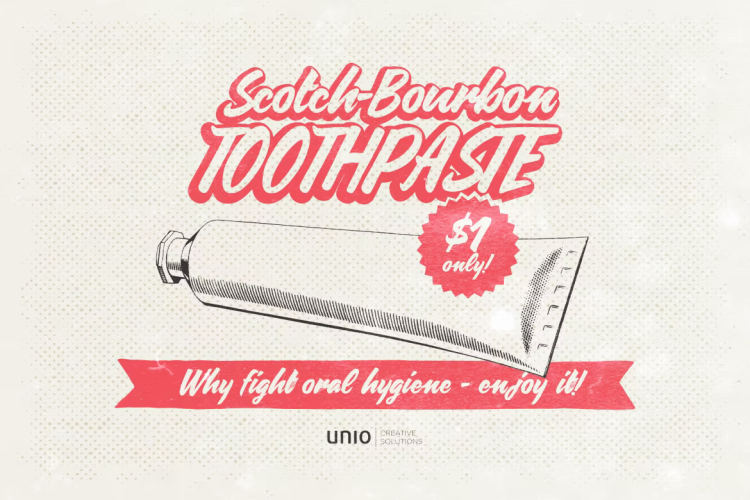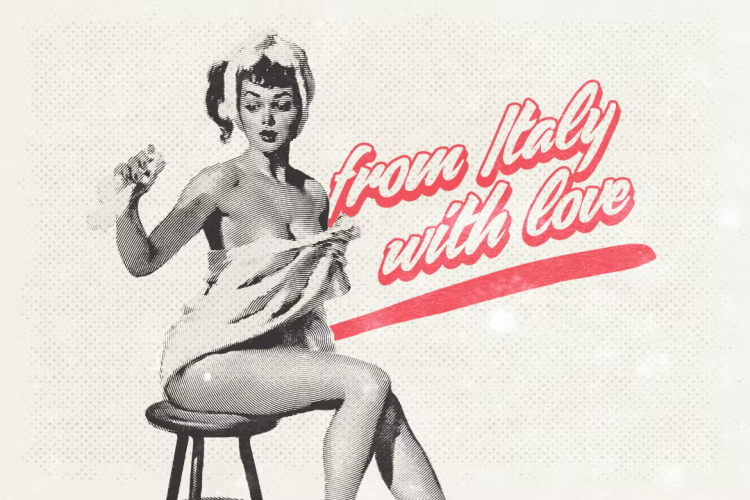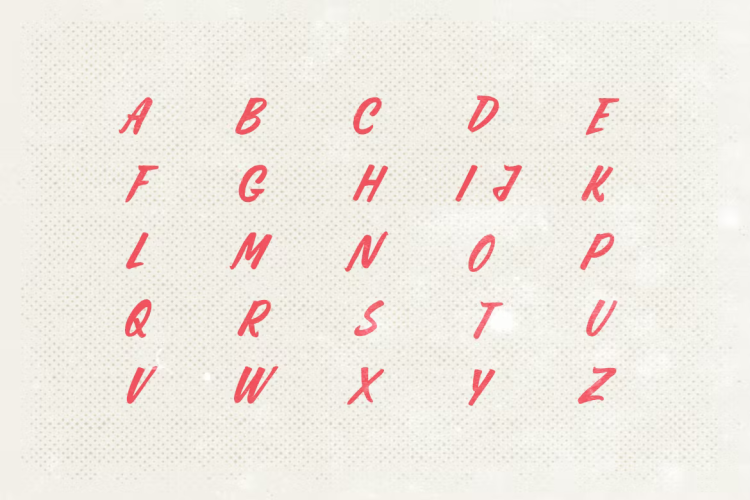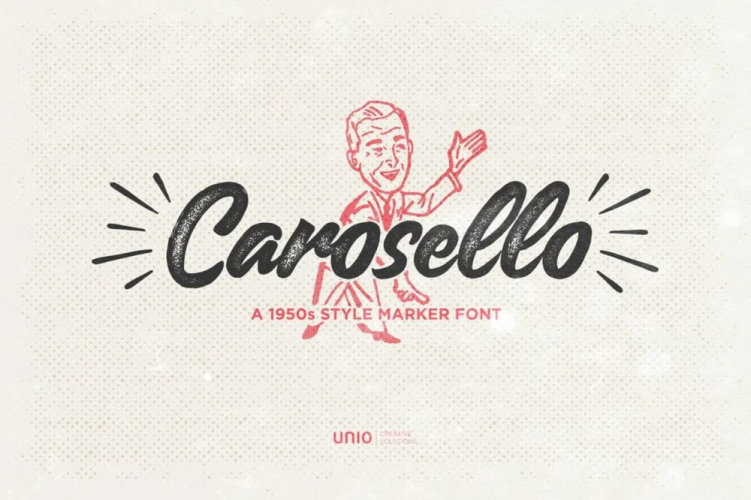
Carosello Font
Carosello Font Truly inspired by vintage ads, created with a real sharpie to display common hand-written imperfections while preserving typical glyphs style of that historical period.
This hand-made font is highly versatile and allows you to create stunning 1950s hand-lettered quotes, inspirational phrases and vintage designs in a matter of seconds.
A short phrase in Carosello Font carries warmth that a typeset sans cannot fake; keep the rest of the card plain.
Chalkboard-style headings in Carosello Font make a menu feel hand-made. Keep the dish descriptions in a simple face so prices stay readable.
One line of Carosello Font over a photo is enough; the script carries the tone and the caption does the work.
It sits in the Script And Handwritten group and reads as display, download, handwritten, retro. That makes it a candidate wherever those qualities help: headings, packaging, social graphics and brand work. Set it at the size you plan to use before deciding.